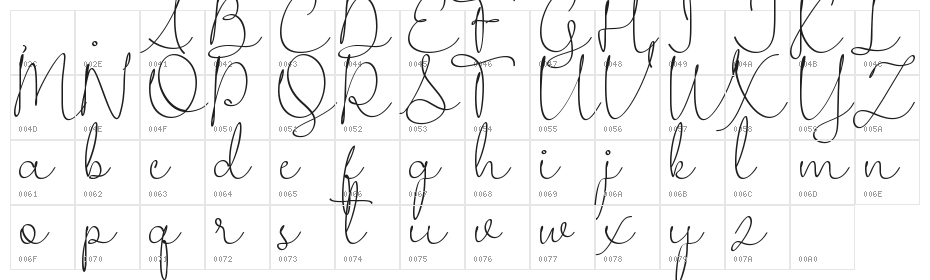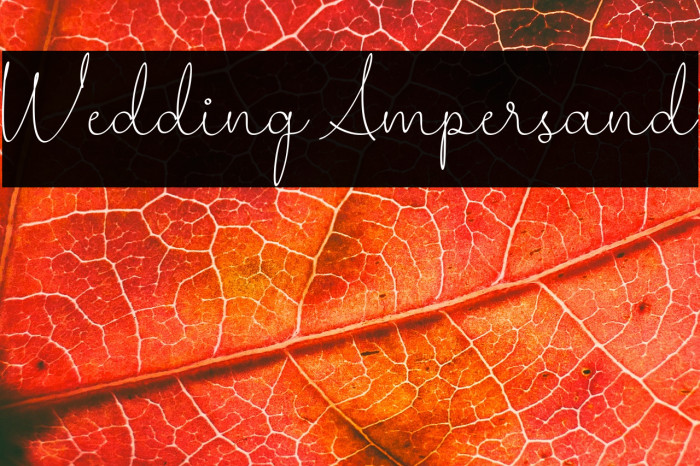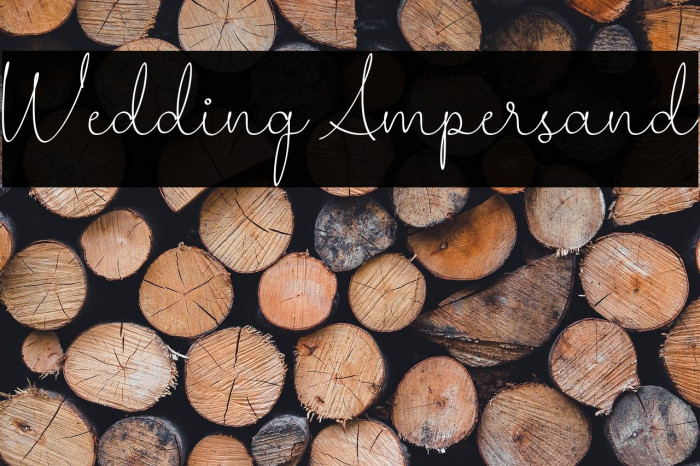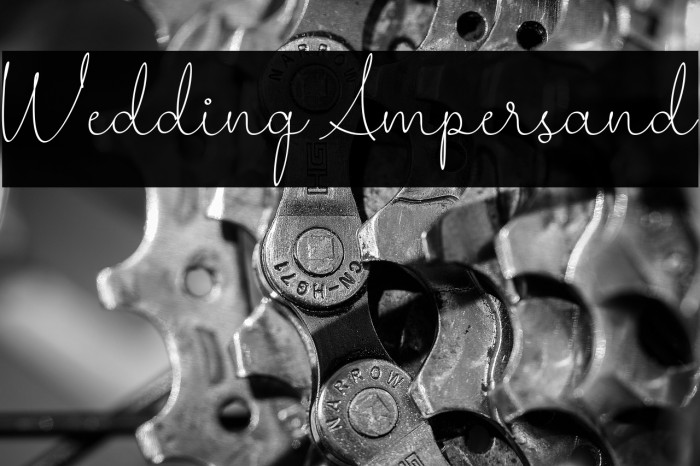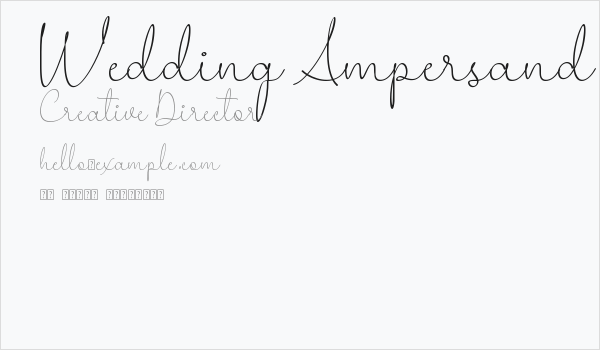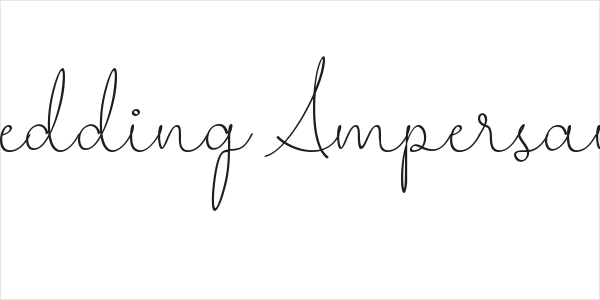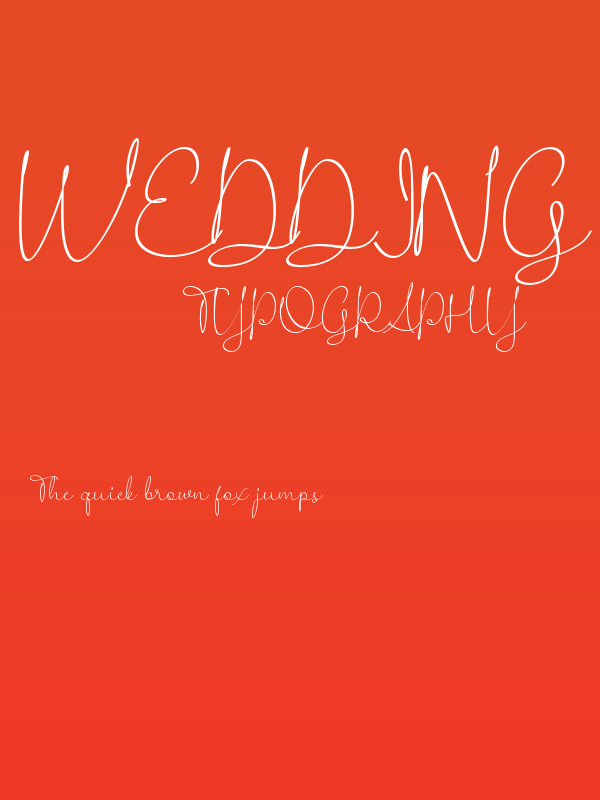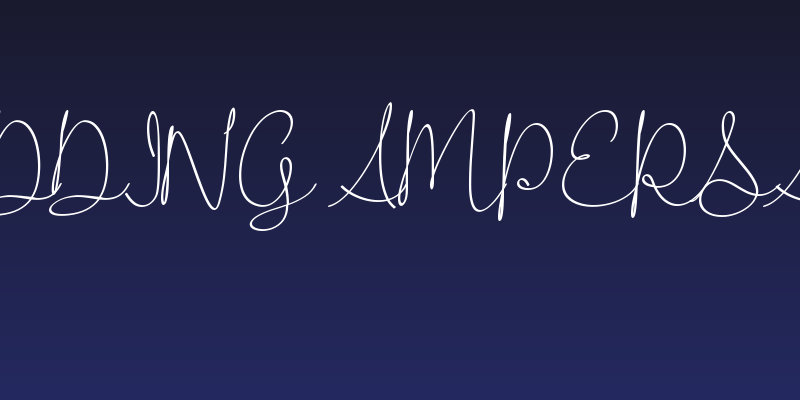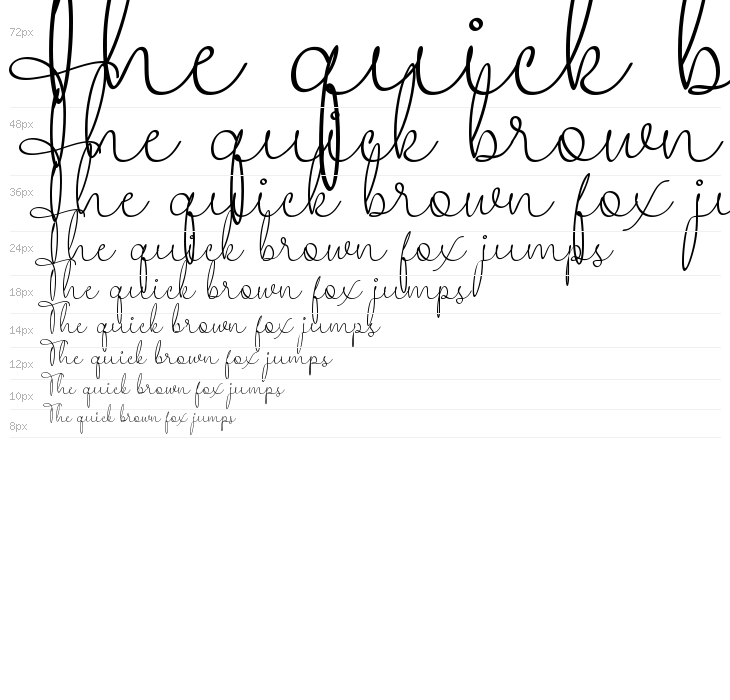
Wedding Ampersand Font
Wedding Ampersand Description
This elegant script font features a flowing, cursive style with intricate loops and swashes, creating a sophisticated and romantic appearance. The characters are delicately connected, emphasizing a sense of continuity and grace. The uppercase letters are particularly ornate, with elaborate flourishes that add a touch of luxury. The lowercase letters maintain a consistent style, with smooth curves and a gentle slant, enhancing readability while preserving the font's decorative nature. This font is ideal for formal occasions, offering a timeless and classic aesthetic that is perfect for wedding invitations, elegant branding, and other upscale design projects.
| Use Case | Headlines, Invitations, Logos |
| Proposed Projects | Ideal for wedding invitations, elegant branding, upscale packaging, and formal event materials. |